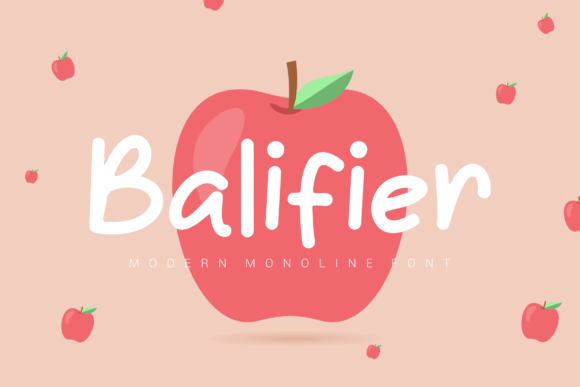
Feast your eyes upon the Balifier Font, the script font that whispers elegance and charm in every letter. Originating from the creative minds at Monotype, Balifier is not merely a font; it's an experience. Immerse yourself in its modern yet casual handwritten style, a perfect fusion of timeless beauty and contemporary flair.
With Balifier, you hold the key to unlocking a world of creative possibilities. It's the font that effortlessly elevates your designs, whether you're crafting handmade cards, creating captivating digital art, delivering impactful presentations, or spreading joy through custom invitations. Its versatility knows no bounds, making it your trusty companion for any occasion, any project.
Picture this: a wedding invitation adorned with the Balifier Font, its delicate strokes hinting at a love story waiting to unfold. Or envision a poster for a local art exhibition, its title written in the Balifier Font, inviting art enthusiasts to a visual feast. From personal expressions to professional endeavors, Balifier infuses every design with a touch of sophistication and a dash of whimsy.
Allow your creativity to soar as you explore the endless possibilities of Balifier. Its graceful curves and playful flourishes add an air of elegance to any text, transforming ordinary words into works of art. Whether you're a seasoned designer or just starting your creative journey, Balifier is the font that unlocks your potential, empowering you to make a statement with every design.
So why settle for ordinary when you can embrace the extraordinary? Download the Balifier Font today and embark on a creative odyssey that will leave you inspired and your audience captivated. Let Balifier be your muse, your creative partner, your secret weapon in the world of design. Dare to stand out, dare to create something truly remarkable.